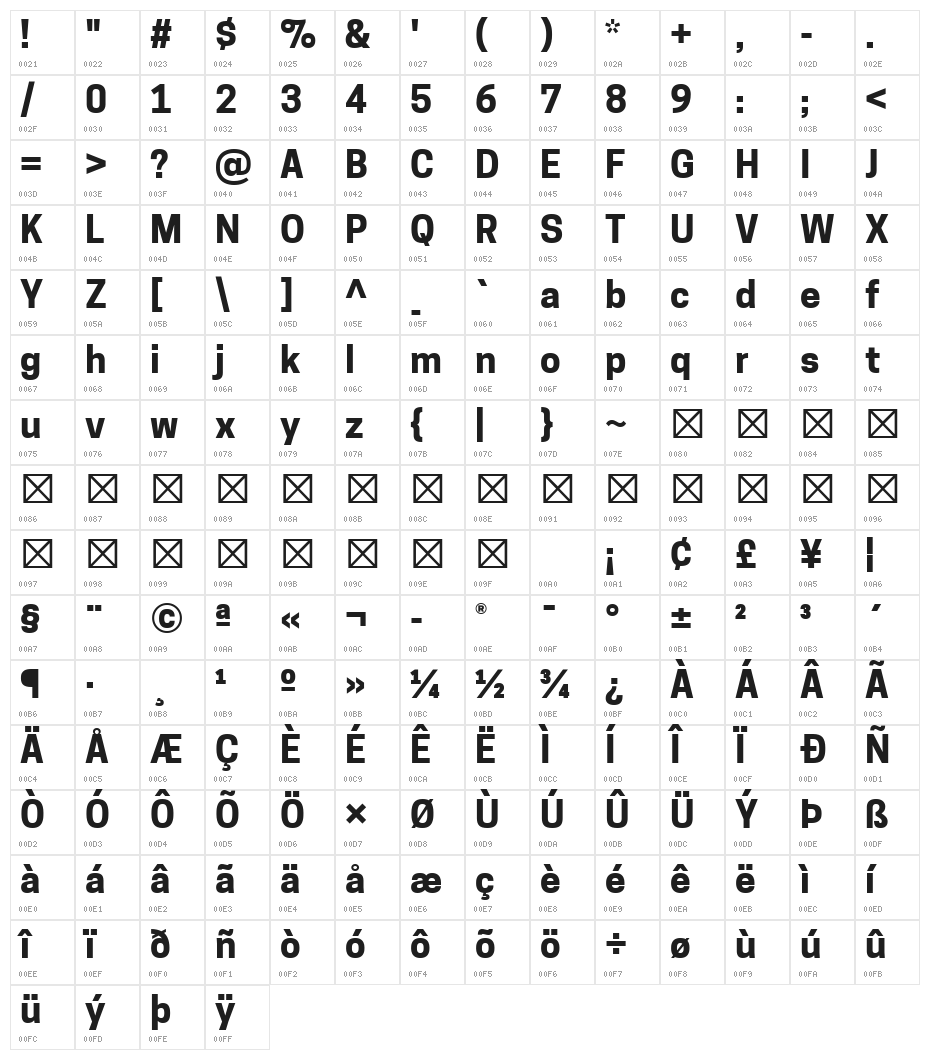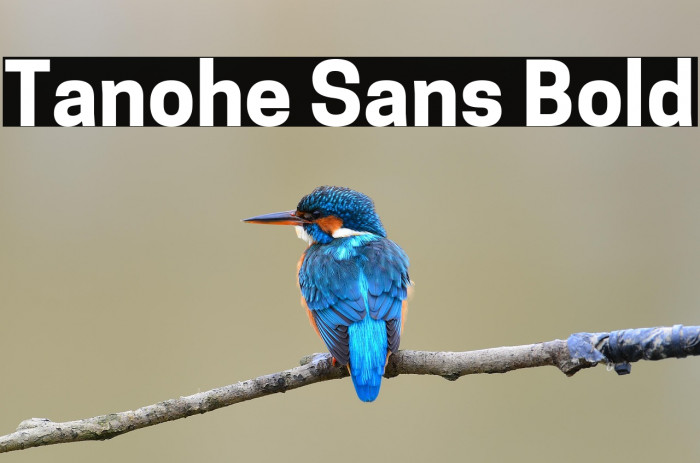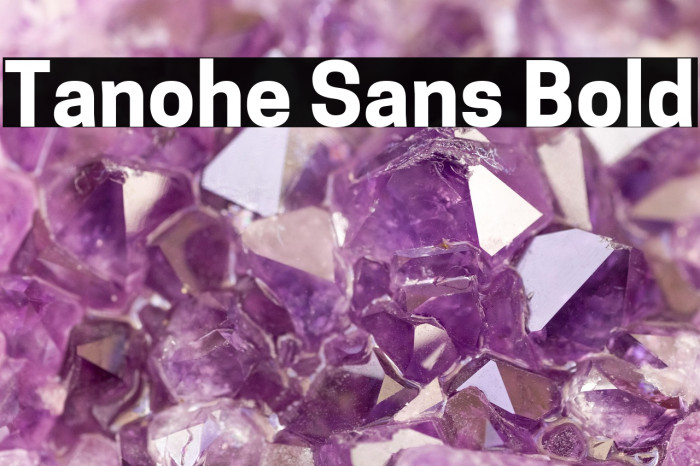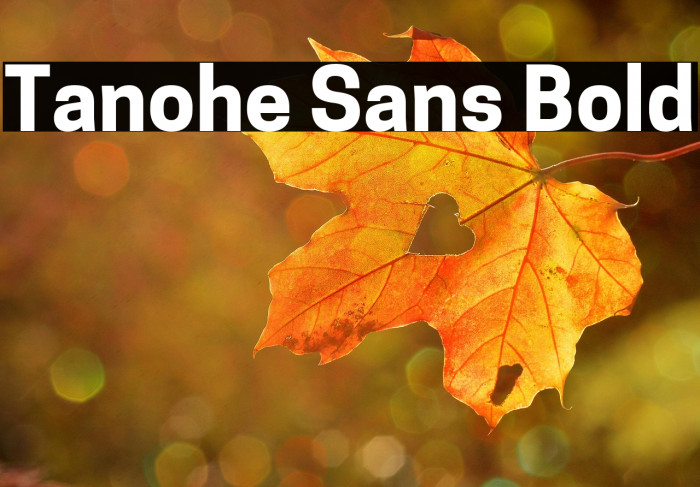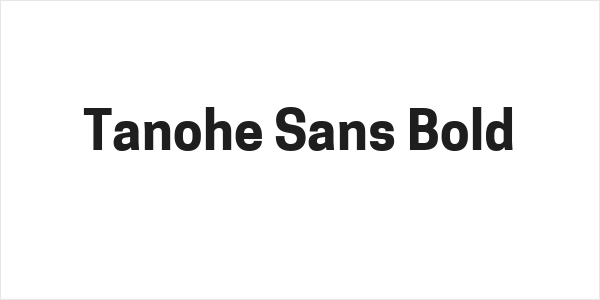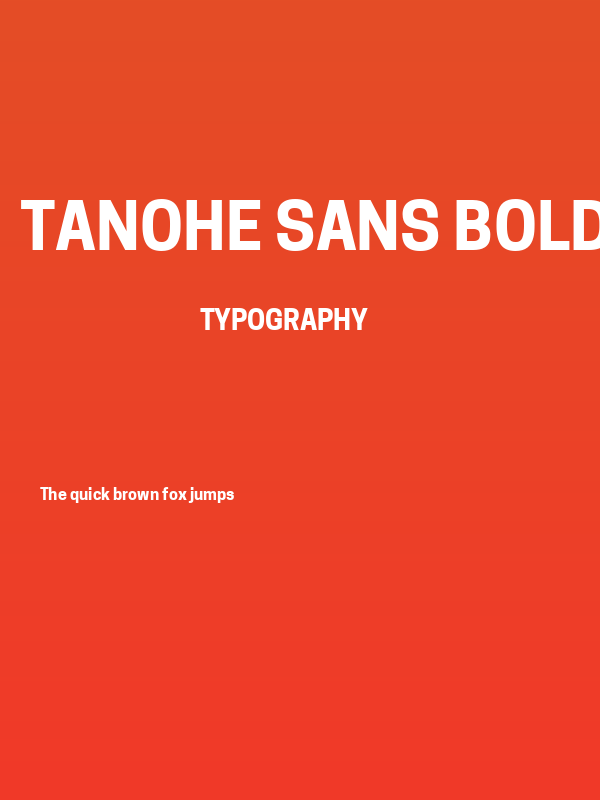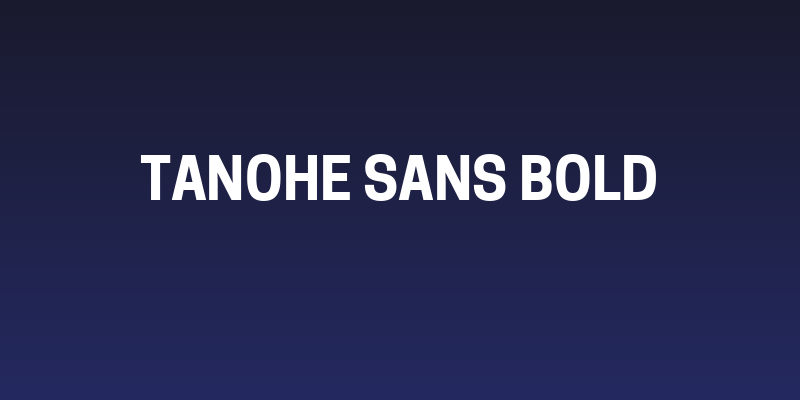
Tanohe Sans Bold Font
Tanohe Sans Bold Description
This font is a bold, sans-serif typeface characterized by its clean and modern appearance. The letters are uniformly thick, providing a strong and impactful visual presence. The uppercase and lowercase letters are well-proportioned, with consistent stroke widths that enhance readability. The numbers are clear and distinct, making them suitable for various applications. Special characters are designed with the same boldness, ensuring they stand out effectively. This font is versatile, suitable for both digital and print media, and can be used in a variety of design projects.
| Proposed Projects | Ideal for branding, headlines, posters, and digital content where a strong visual impact is needed. |